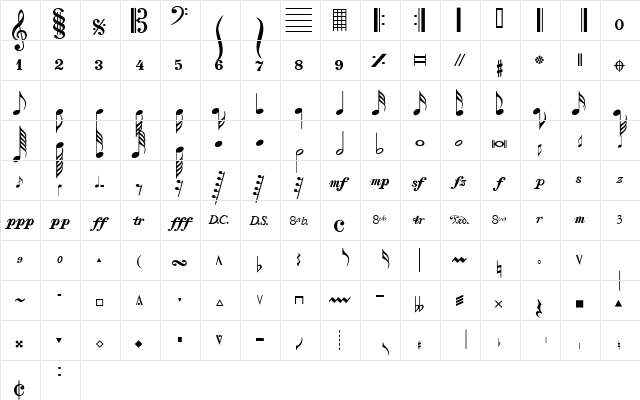
Musical Regular
Design Context for Musical Typeface
Musical takes a measured approach to typography — its balanced proportions and neutral character make it a reliable workhorse for both digital and print work.